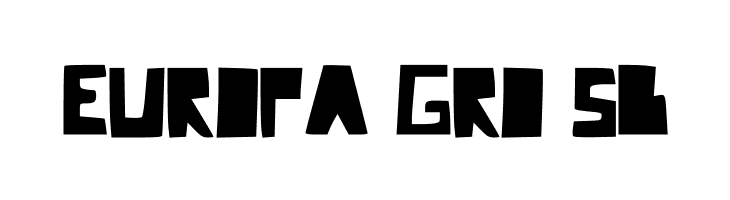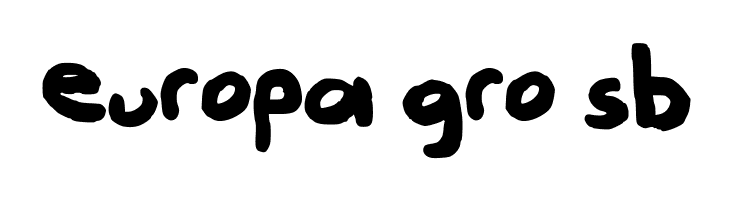
( Fonts by Davy Meykens - davymeykens.deviantart.com )
A playful, bold font with a cartoonish style and 3D shadow effect.
( Fonts by Davy Meykens - davymeykens.deviantart.com )
A bold, grunge-style font with splatters and drips for an edgy look.
( Fonts by Davy Meykens - davymeykens.deviantart.com )
A playful, chaotic font with a ransom note style.
( Fonts by Davy Meykens - davymeykens.deviantart.com )
A bold, geometric font with a playful and quirky style.
( Fonts by Davy Meykens - davymeykens.deviantart.com )
A bold, playful handwritten font with thick strokes and a casual style.
( Fonts by Davy Meykens - davymeykens.deviantart.com )
A distressed, grungy font with irregular edges and a chaotic appearance.
( Fonts by Davy Meykens - davymeykens.deviantart.com )
An ornate and decorative font with intricate uppercase and casual lowercase styles.
( Fonts by Davy Meykens - davymeykens.deviantart.com )
A nostalgic, handwritten font with fluid, organic characters.